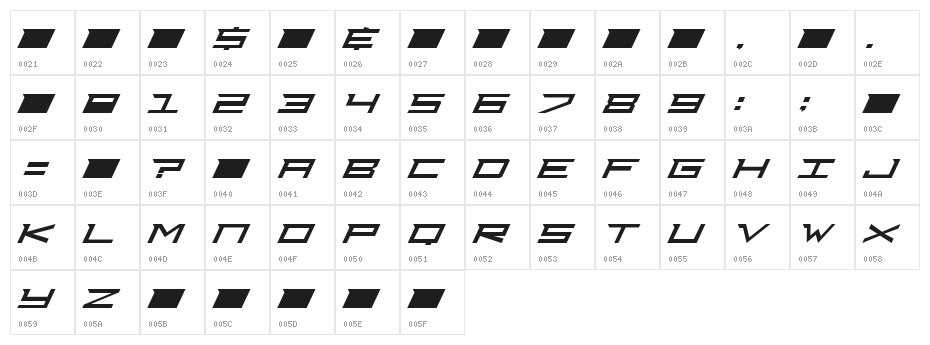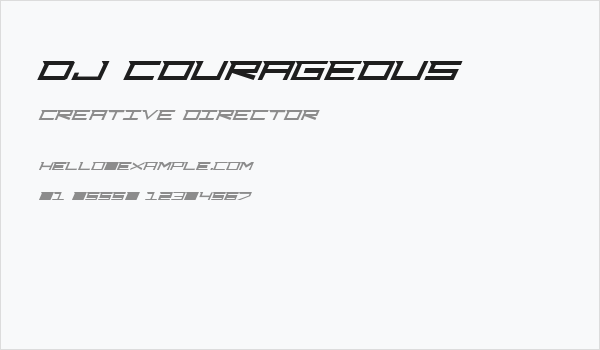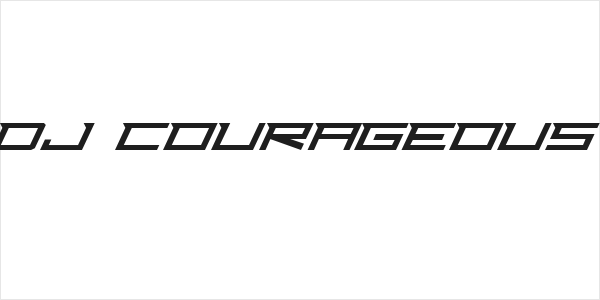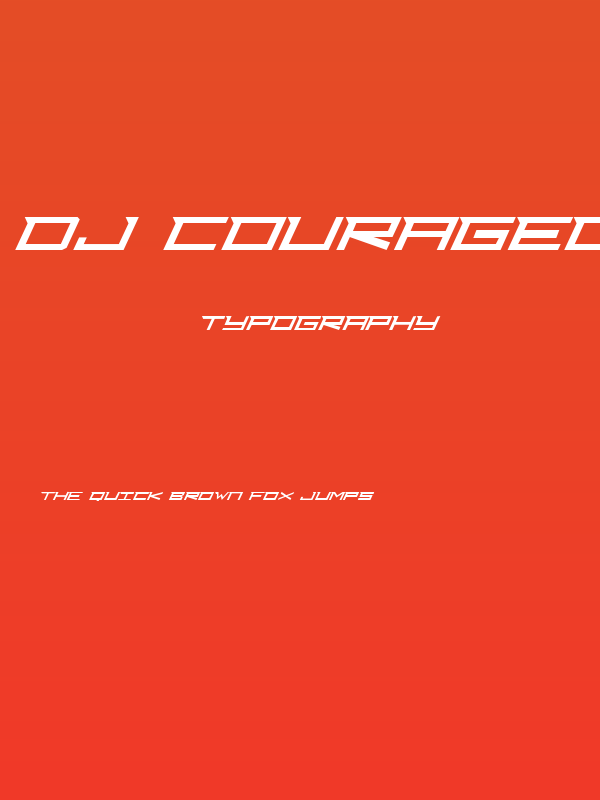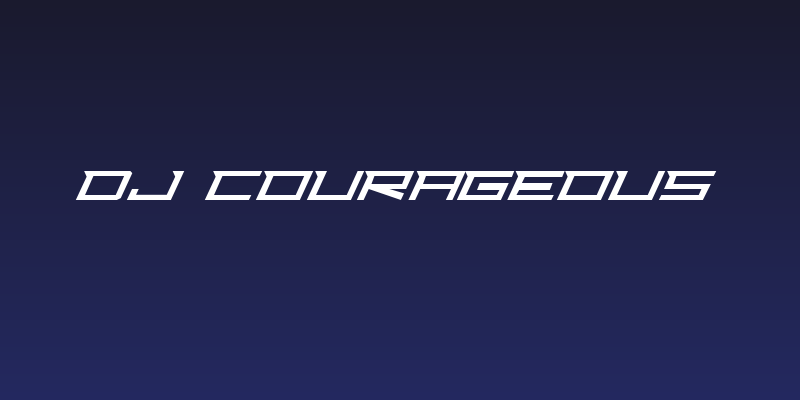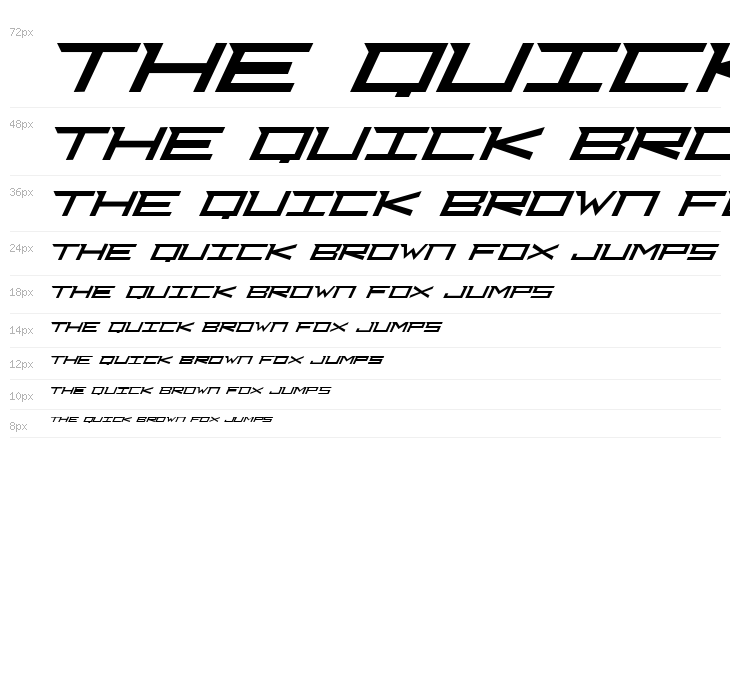
Dj Courageous Font
Dj Courageous Description
This font features a bold, angular design with a futuristic and dynamic appearance. The characters are slanted, giving a sense of motion and speed, which is accentuated by the sharp edges and geometric shapes. The uppercase and lowercase letters maintain a consistent style, with a strong emphasis on horizontal lines. Numbers and special characters follow the same design principles, ensuring uniformity across all glyphs. This font is ideal for projects that require a modern and edgy look, such as technology-related branding or sports team logos.
DJ-COURAGEOUS UPPERCASE
DJ-COURAGEOUS LOWERCASE
DJ-COURAGEOUS OTHER CHARS
| Use Case | Logos, Headlines |
| Proposed Projects | Ideal for technology branding, sports team logos, and dynamic posters. |